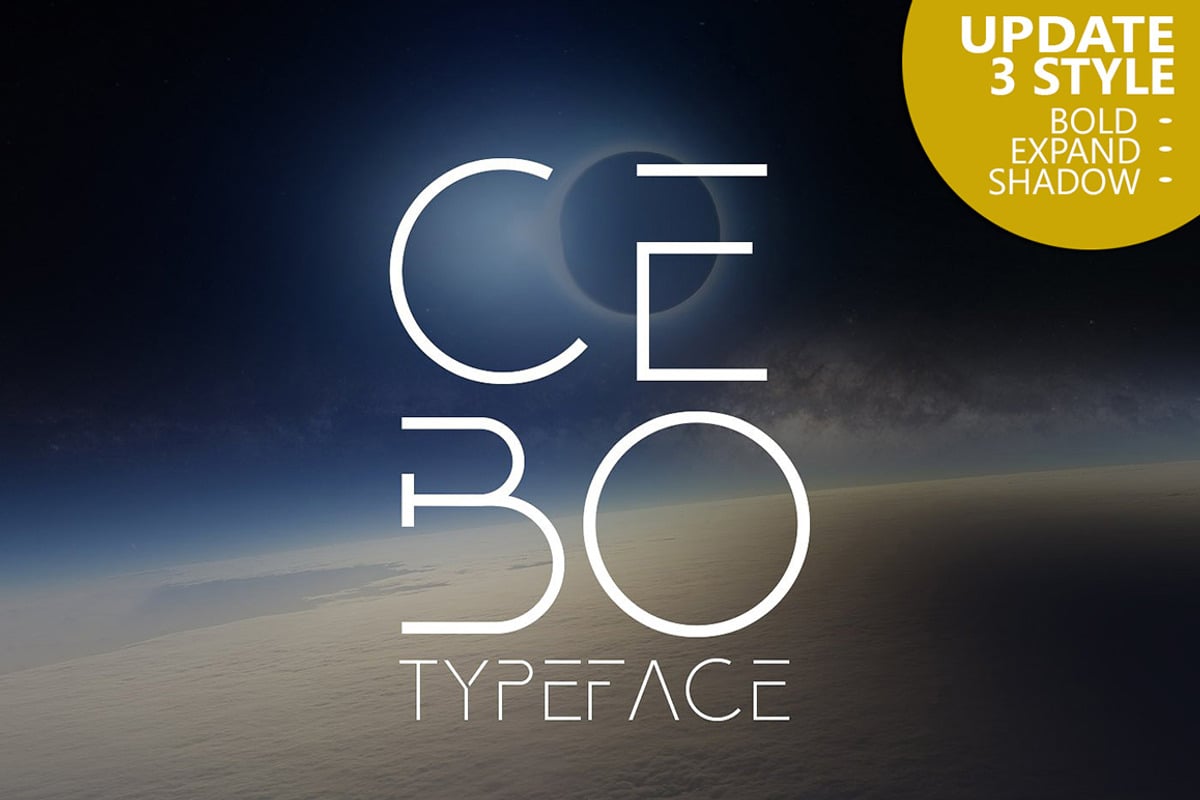
Cebo (6 Font)
Cebo delivers minimalist elegance with 6 distinct styles for maximum creative versatility. This contemporary typeface collection features awesome character design across six unique variations: Light, Twin, Shadow, Expand, Bold, and Sketch. Each style maintains the clean, minimalist aesthetic while offering different visual impacts for your projects. Perfect applications include: Business cards and corporate identity Posters and promotional materials Logo design and branding Magazine layouts and ...